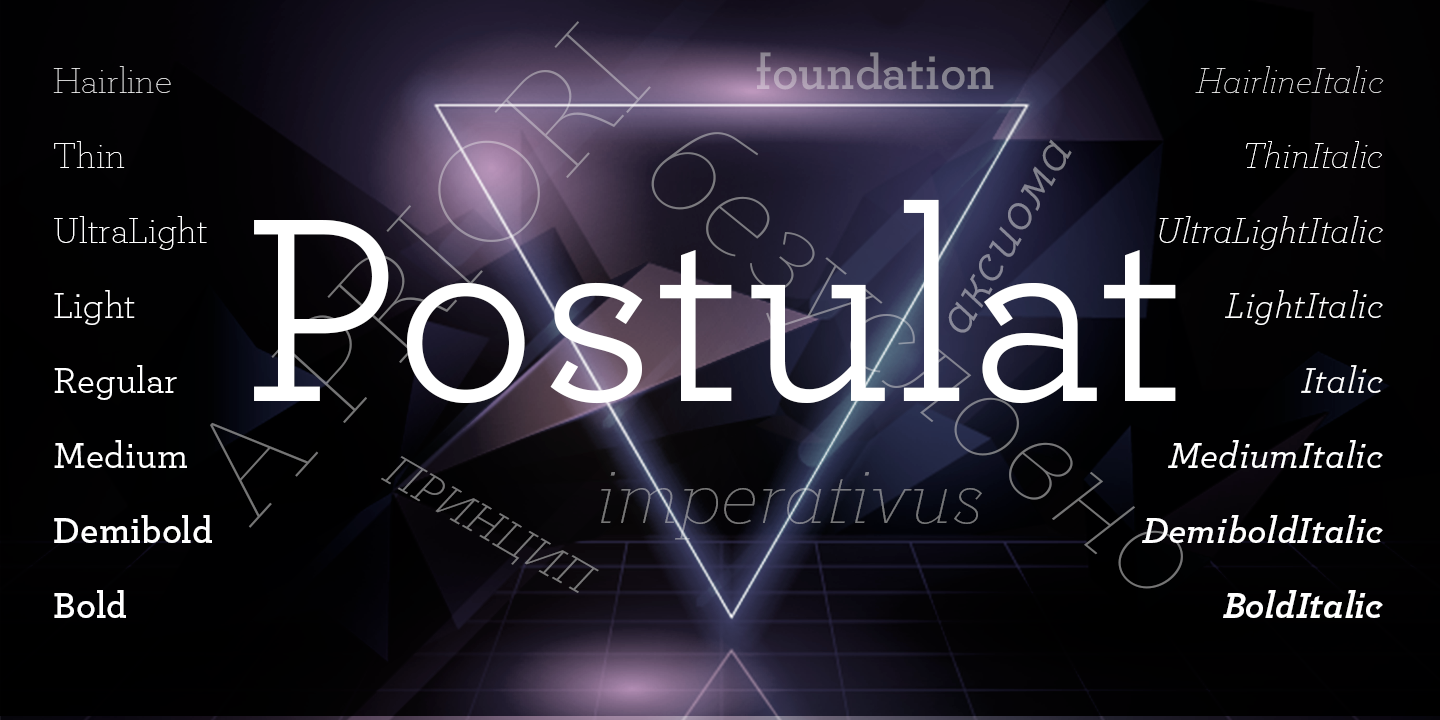
Postulat Font is ideal for academic publications, scientific research papers, philosophical texts, theoretical documentation, scholarly journals, educational materials, research institutions, intellectual property branding, and formal academic presentations. This sophisticated typeface brings scholarly authority, intellectual credibility, and systematic clarity to any project requiring rigorous academic communication and theoretical precision.
What makes Postulat Font exciting is its remarkable ability to convey complex theoretical concepts with absolute clarity while maintaining the dignified presence essential for serious academic discourse. The font features carefully constructed letterforms with optimal character spacing, consistent stroke weights, and refined details that enhance comprehension of dense theoretical material. Its scholarly character reflects the precision and methodical approach required for academic excellence, making it perfect for institutions and publications that demand the highest standards of intellectual presentation.
The Postulat Font family typically includes comprehensive weight variations from regular to bold, with matching italic styles and extended character sets supporting mathematical symbols and academic notation. The complete family features multilingual support, professional typography options including small caps, superscripts, subscripts, and specialized characters essential for scholarly publishing and academic documentation.
Whether you're publishing research papers or developing academic brand identities, Postulat Font Free Download provides unmatched scholarly excellence and typographic precision. This typeface excels in complex academic layouts, maintaining perfect readability through lengthy theoretical discussions and detailed research presentations. Its intellectual appeal makes it particularly effective for universities, research institutions, and academic publishers that need to communicate expertise and scholarly authority. The font's systematic character ensures clear knowledge transmission while establishing credibility and academic gravitas essential for serious intellectual discourse.